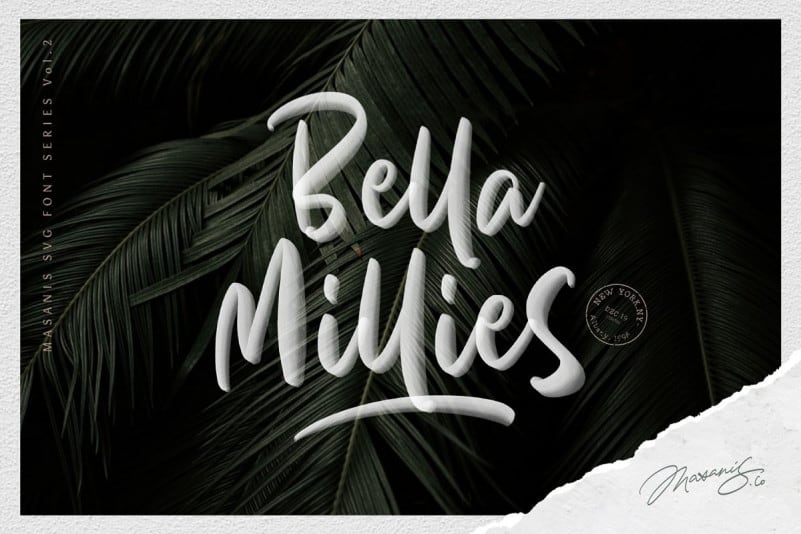
Bella Millies Script Font
Introducing Bella Millies Font! It’s designed and shared by Masanis.
It’s a modern SVG font with a realistic hand-lettered sharpie look that makes it the perfect fit for signature logos, printed quotes, wedding invitation cards, social media headers, product packaging and a lot more!